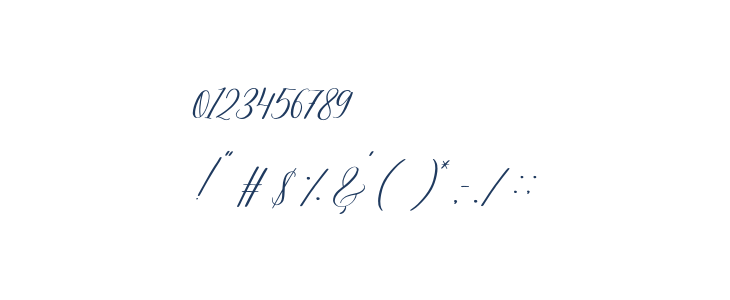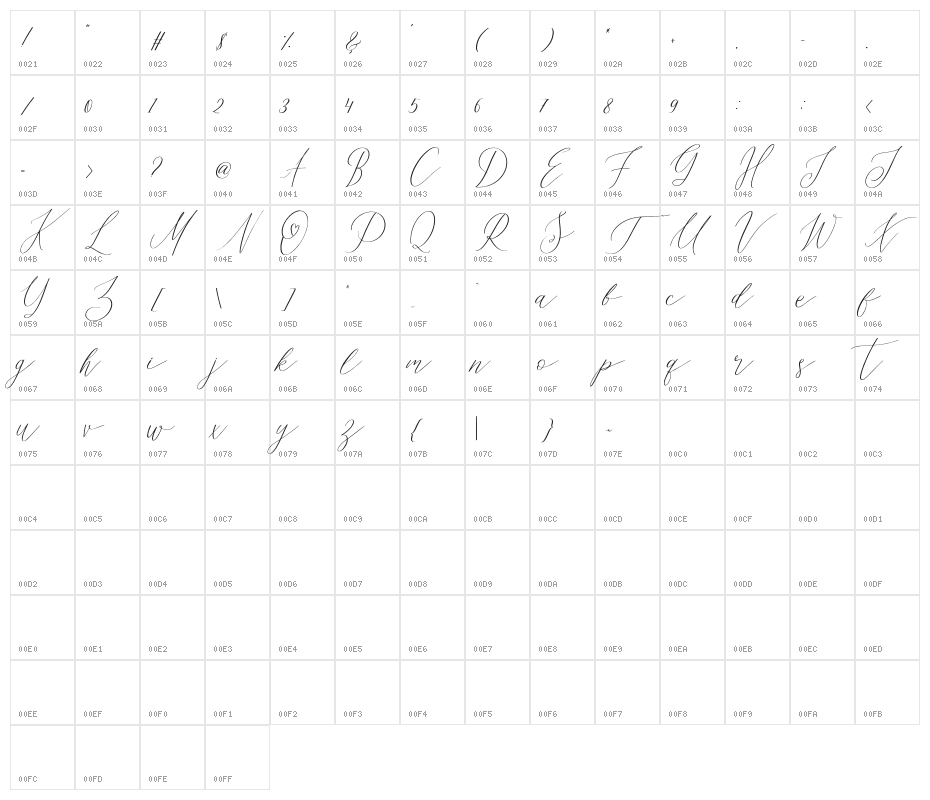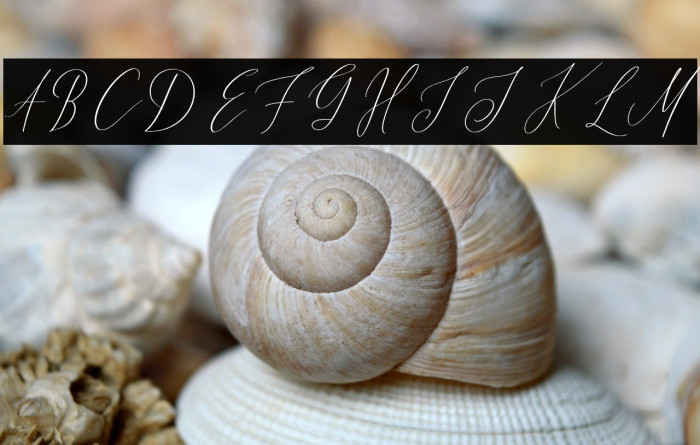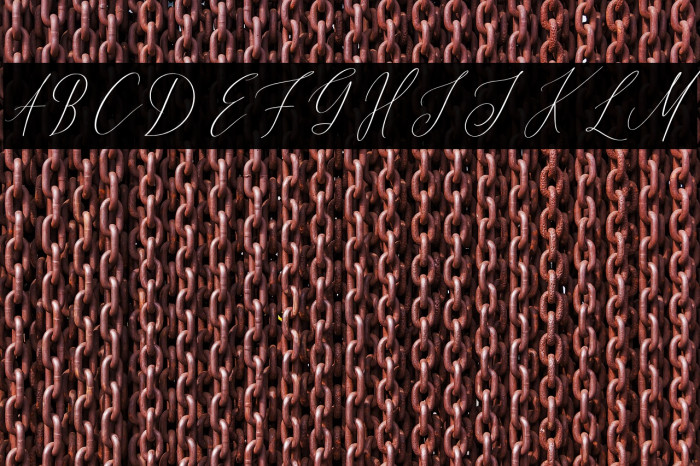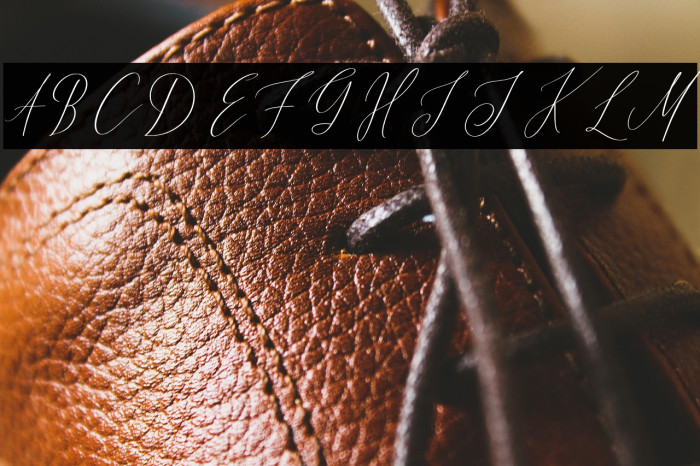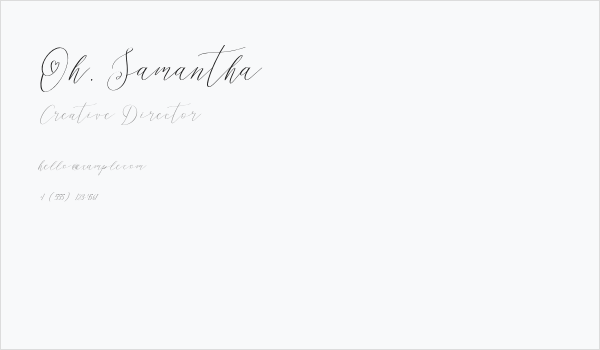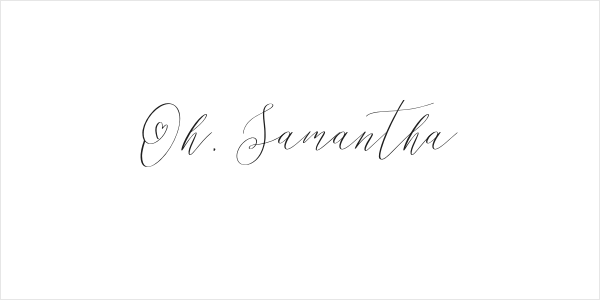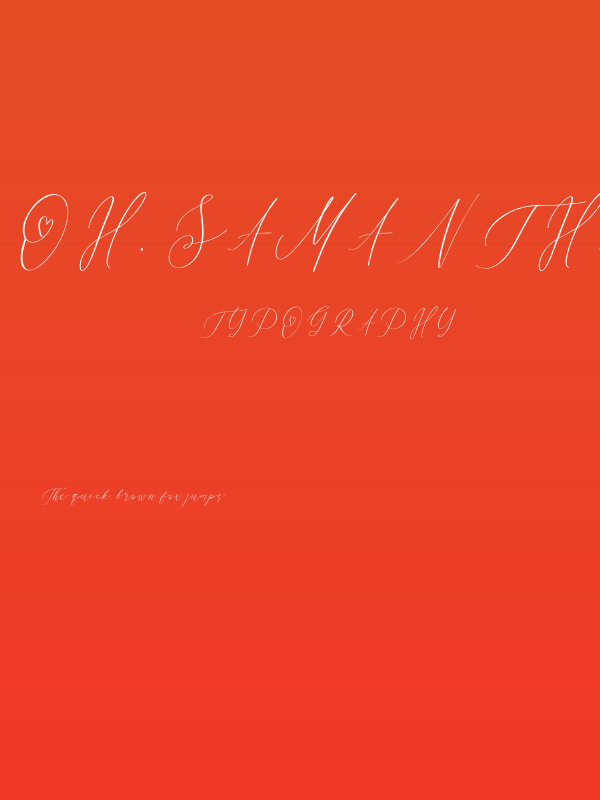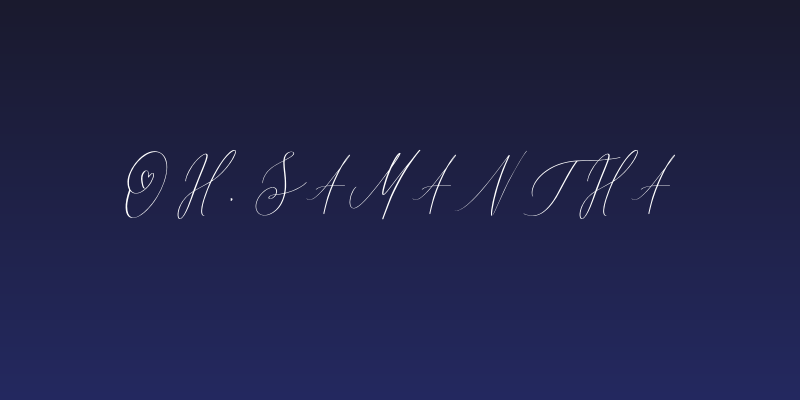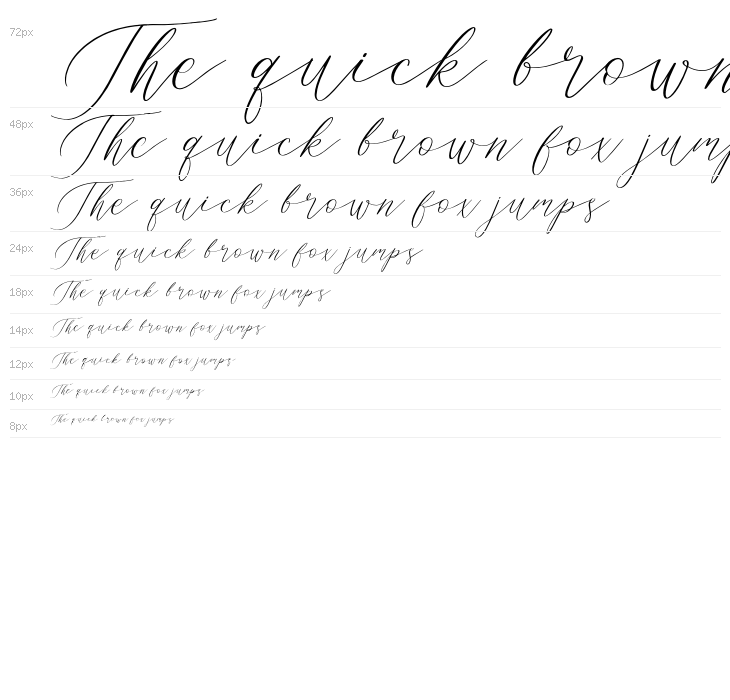
Oh, Samantha Font
Oh, Samantha Description
This elegant script font features flowing, cursive letters with a delicate and sophisticated appearance. The uppercase characters are tall and graceful, with sweeping lines and gentle curves, while the lowercase letters maintain a consistent, fluid style that complements the uppercase. The numerals are stylish and blend seamlessly with the overall design. Special characters are thoughtfully crafted, adding to the font's versatility. The thin strokes and high contrast give it a refined and luxurious feel, making it ideal for formal invitations, branding, and decorative purposes.
| Overall Style | Elegant, Sophisticated |
| Use Case | Invitations, Branding, Decorative |
| Proposed Projects | Ideal for wedding invitations, elegant branding, luxury packaging, and decorative headings. |